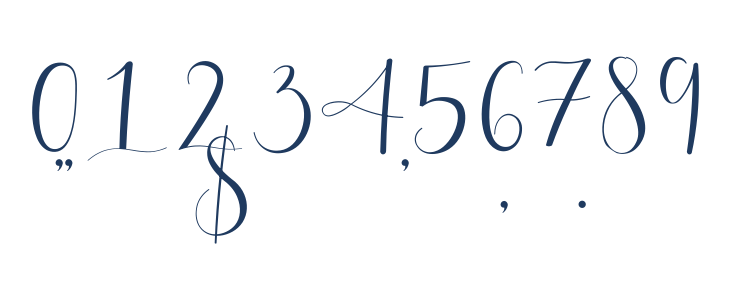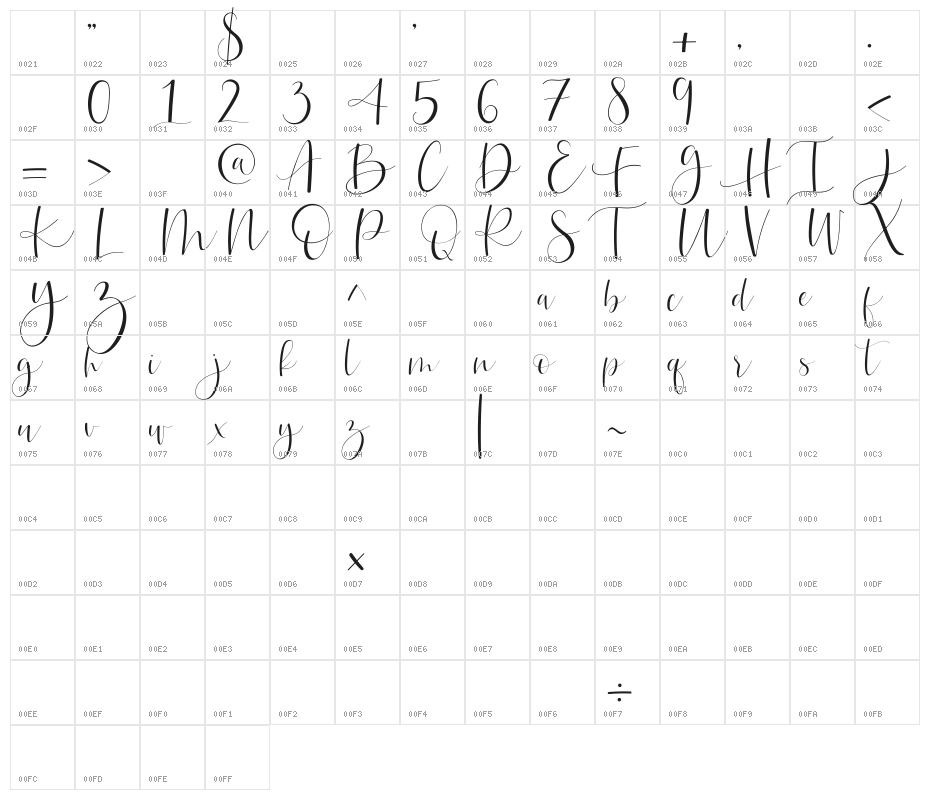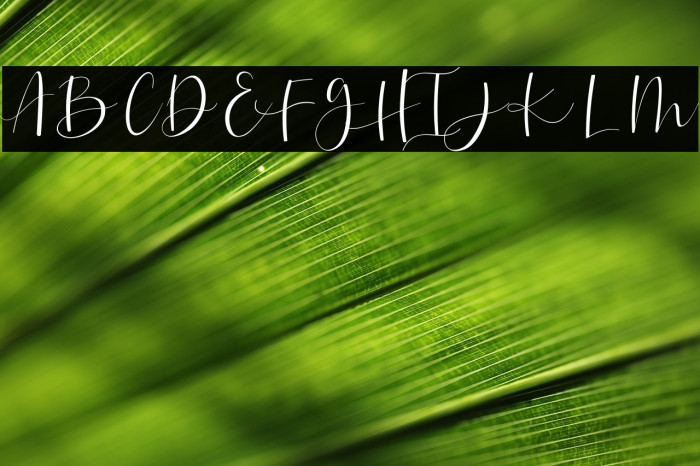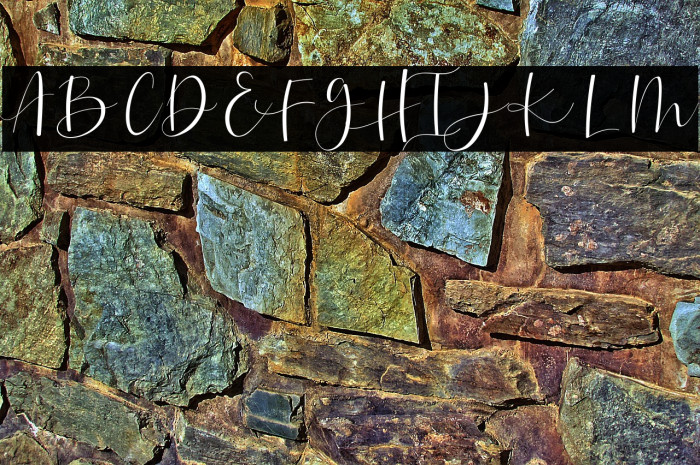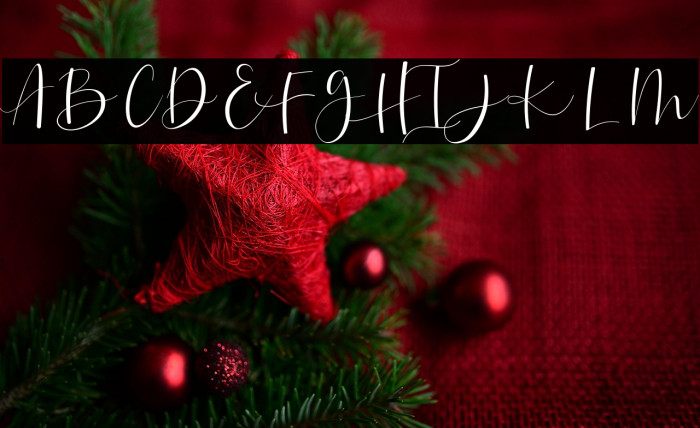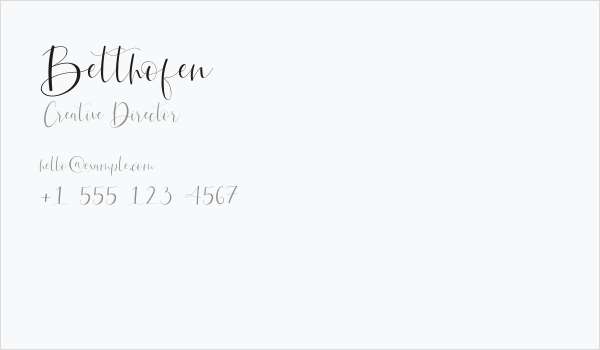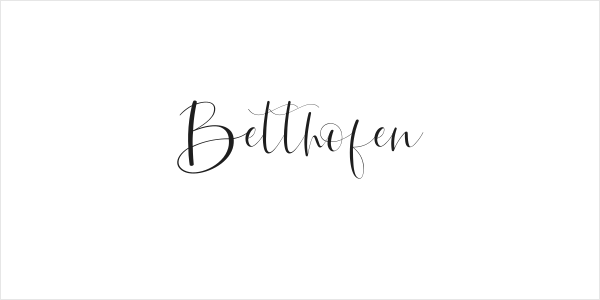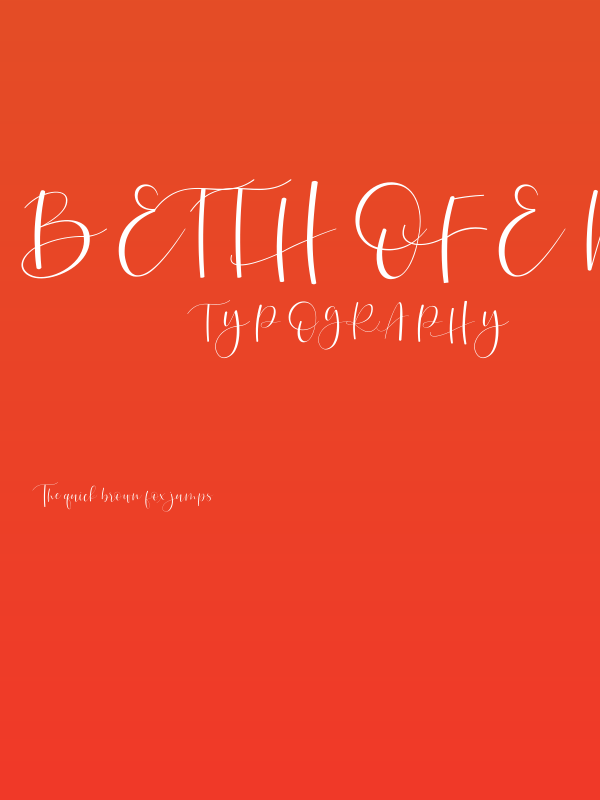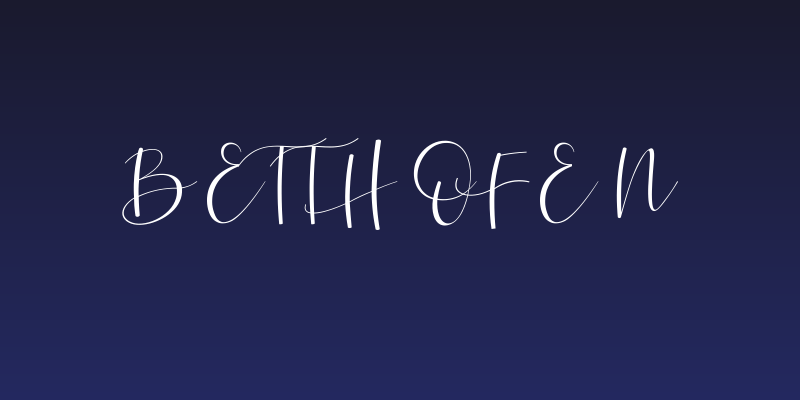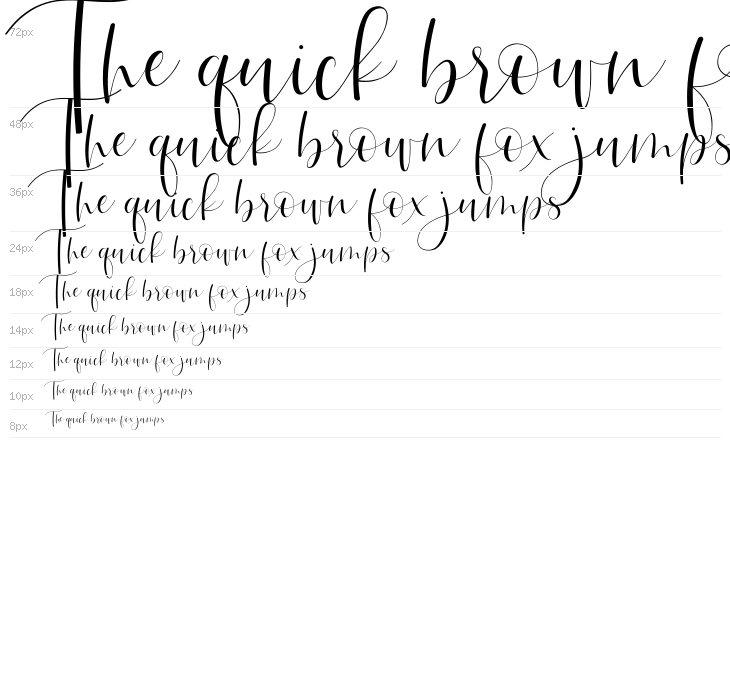
Betthofen Font
Betthofen Description
This font features an elegant and flowing script style, characterized by its graceful curves and intricate swashes. The uppercase letters are tall and slender, with decorative flourishes that add a touch of sophistication. The lowercase letters maintain a consistent flow, with some characters extending into elaborate loops and tails. Numbers are styled to match the overall aesthetic, with a slight slant and delicate curves. The special characters are designed with similar attention to detail, ensuring a cohesive look across all glyphs. This font exudes a sense of elegance and refinement, making it ideal for formal invitations, branding, and other projects that require a touch of class.
| Use Case | Headlines, Invitations, Branding |
| Proposed Projects | Ideal for wedding invitations, luxury branding, elegant stationery, and high-end product packaging. |